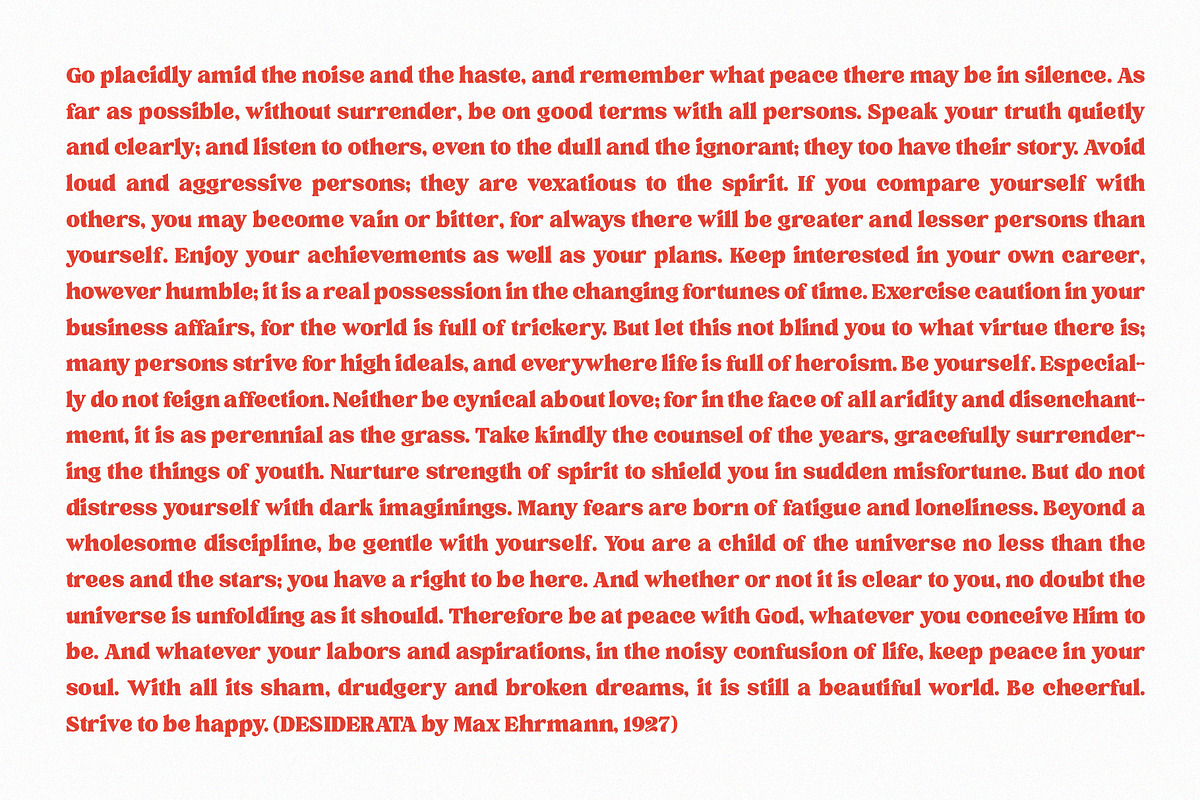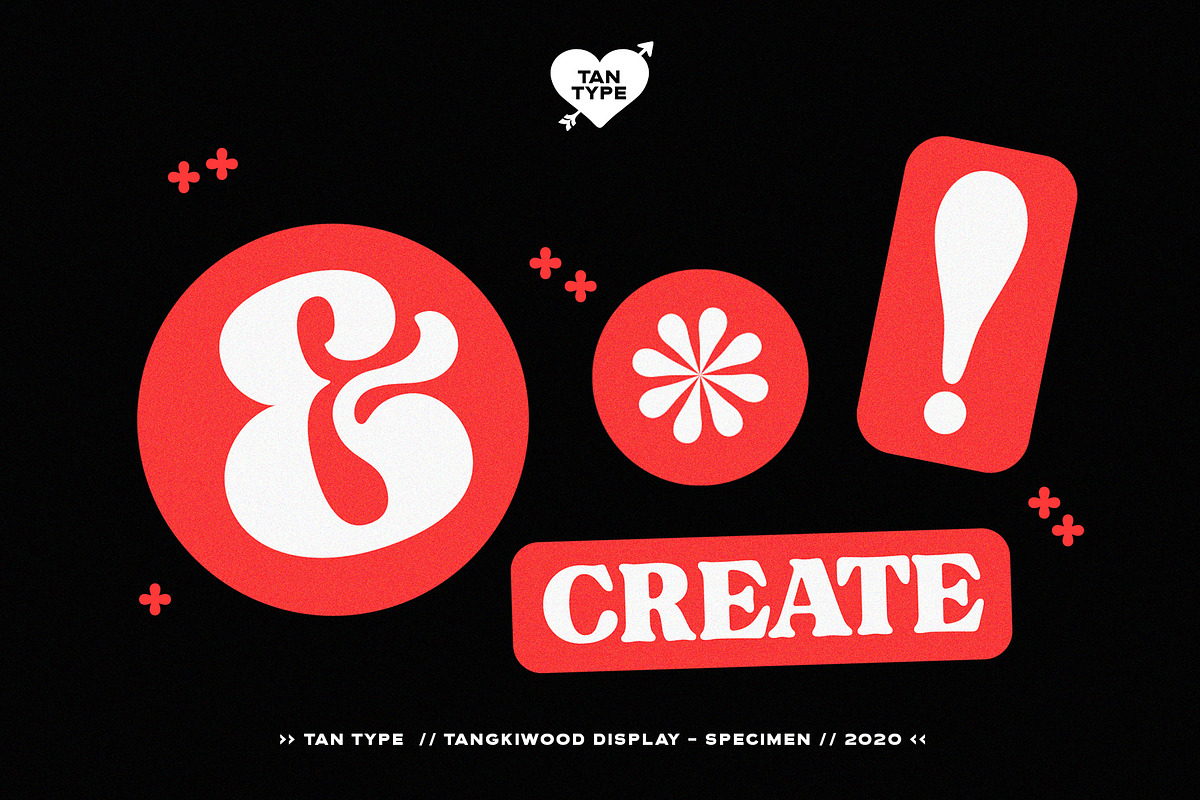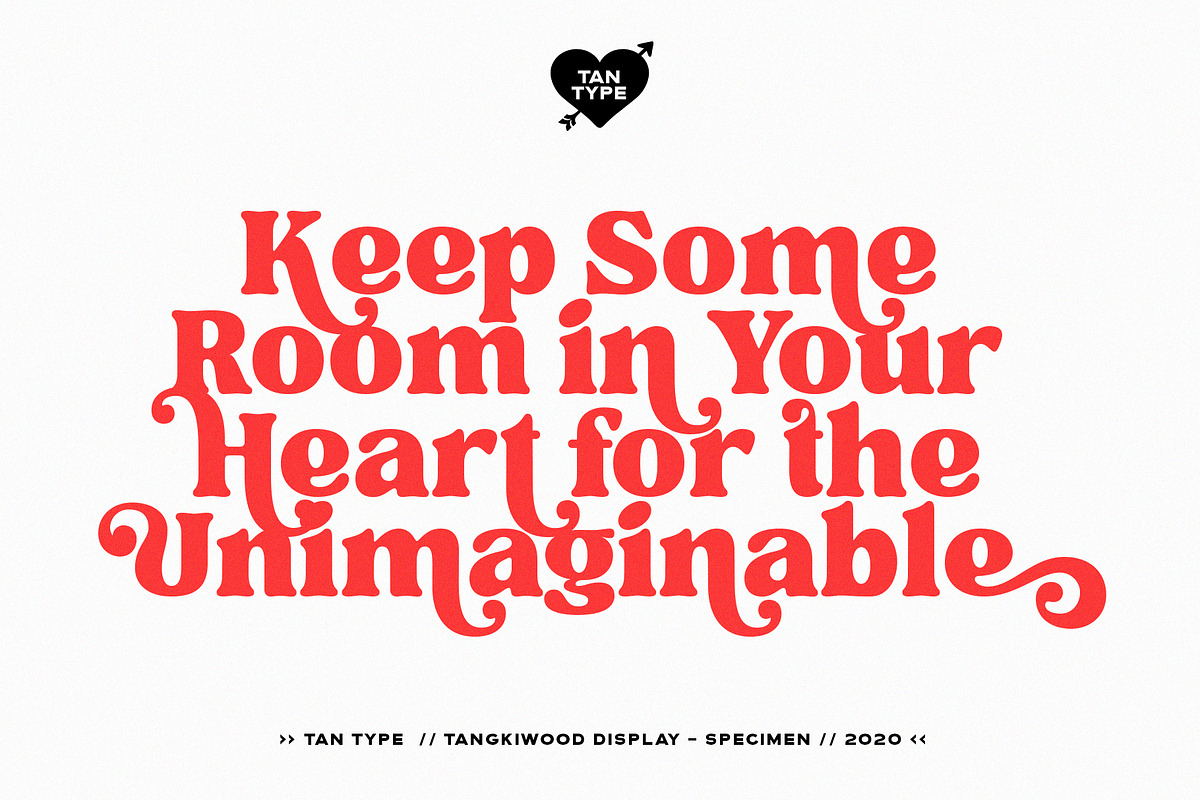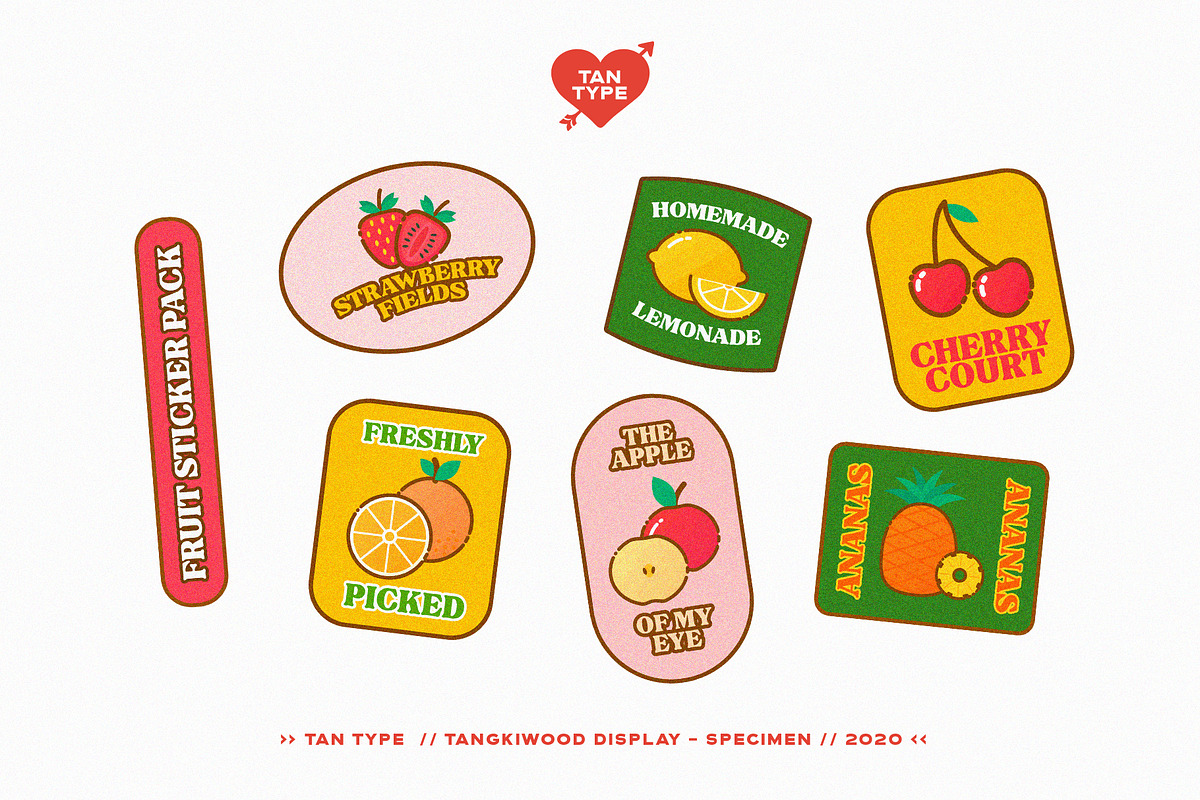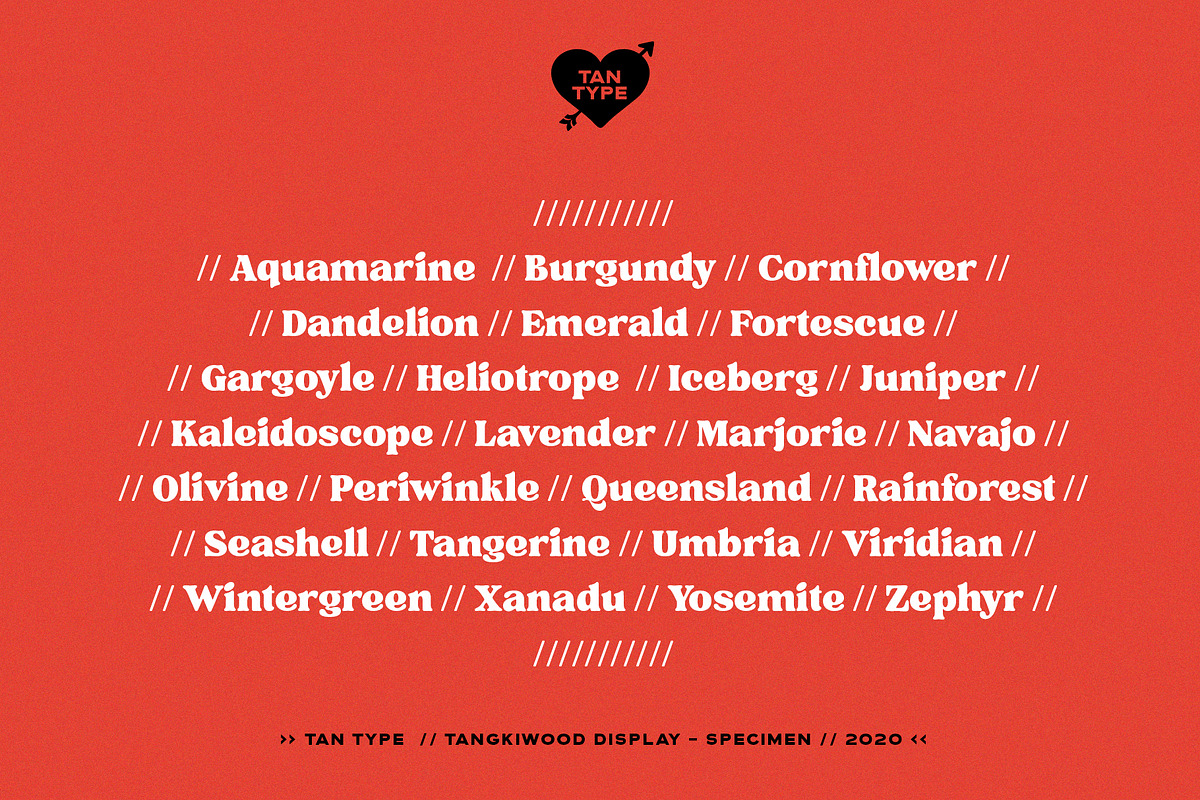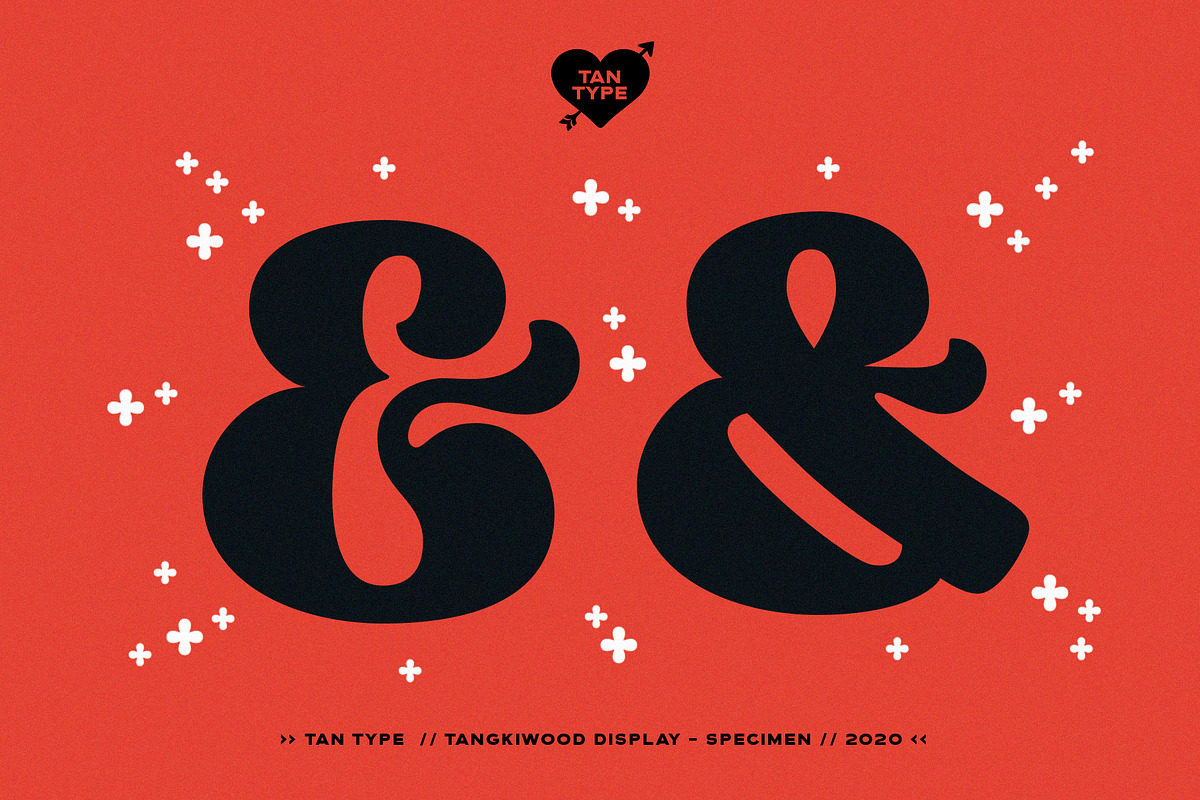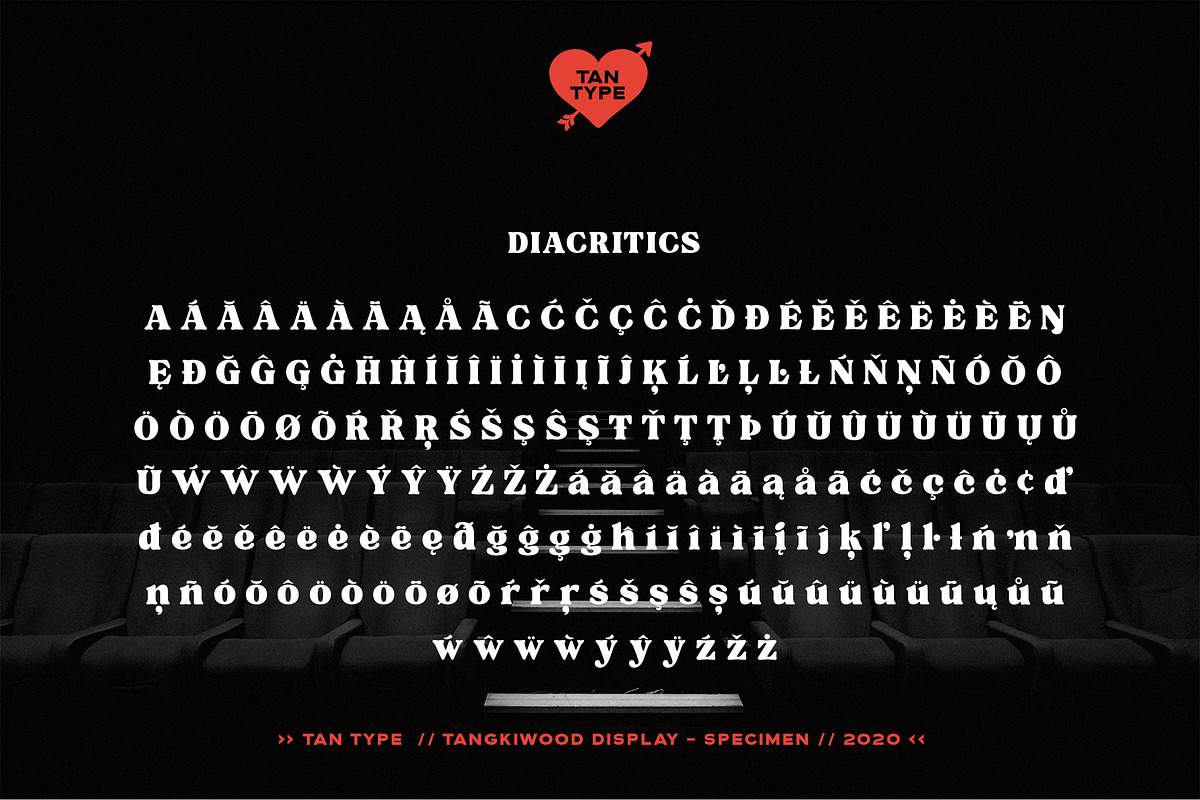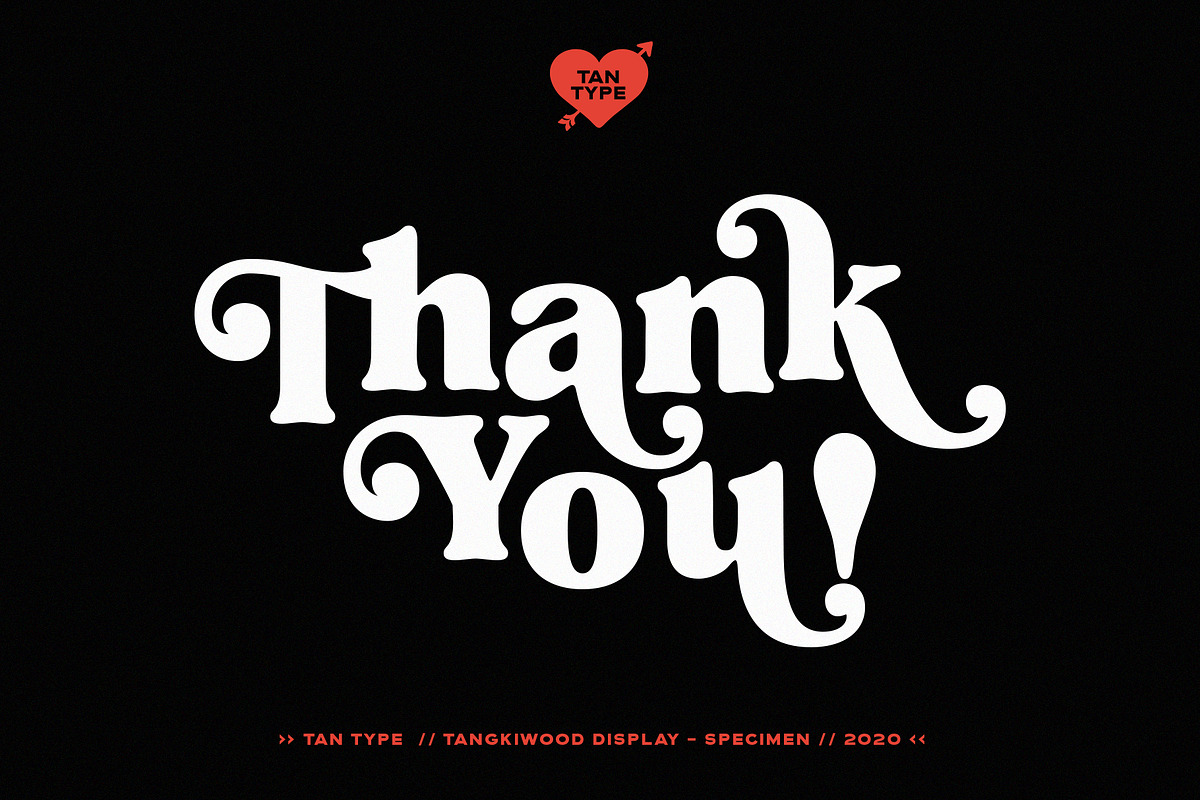
TAN - Tangkiwood
Tangkiwood is a display typeface with single weight. Its inspired by 70's vibes, bold and certainly a fun serif to play with. Alternates are available for both uppercase and lowercase. Multilingual support.